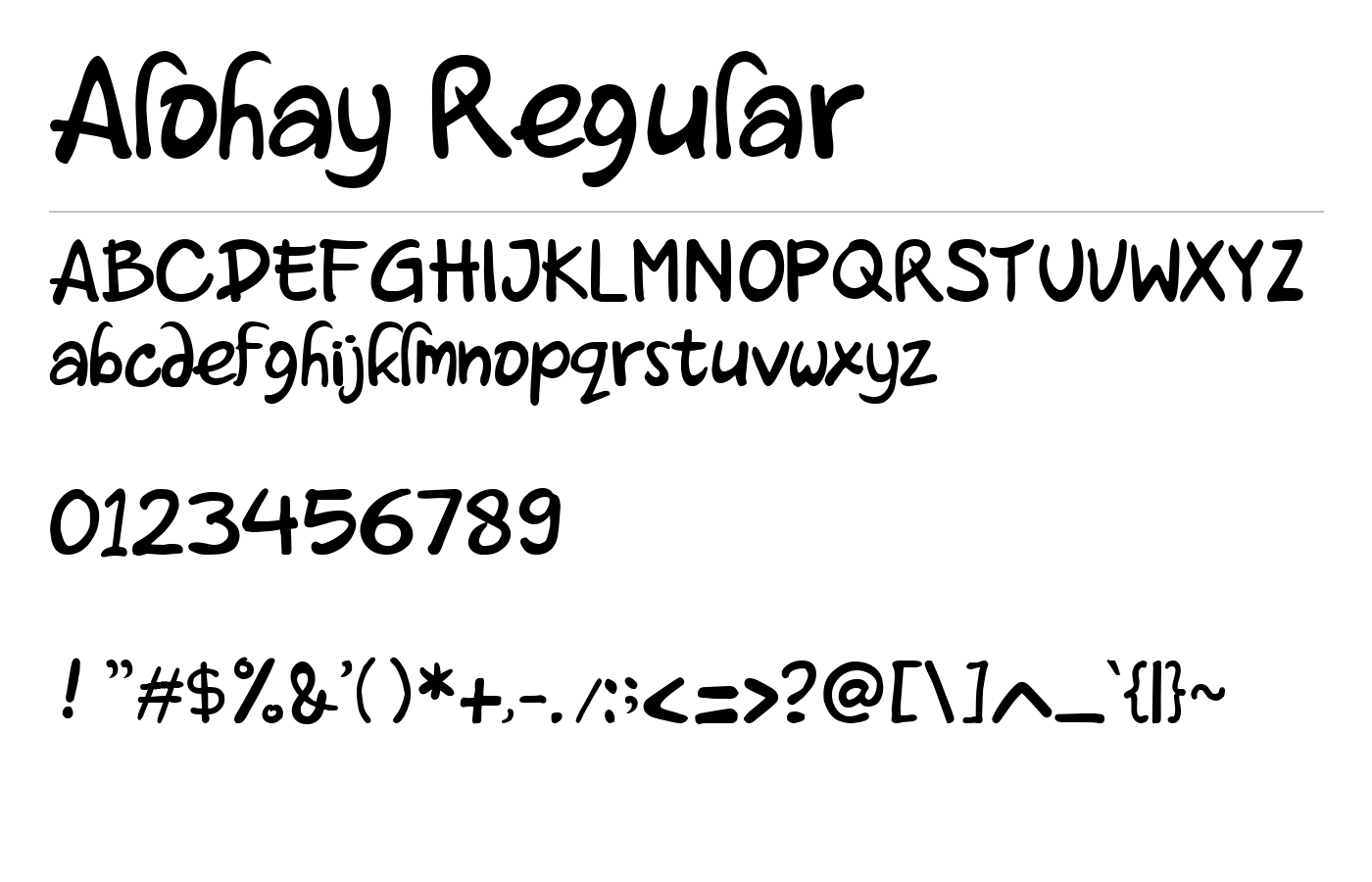
Alohay Regular is a playful and casual handwritten font with a friendly and approachable vibe. Its rounded, slightly irregular letterforms and variable stroke widths create an informal, hand-drawn feel, making it perfect for creative projects, children’s materials, and personal branding. This font works well for headlines, invitations, and any design aiming for a warm, cheerful, and human touch.
Alohay Regular Font
About Alohay Regular Font